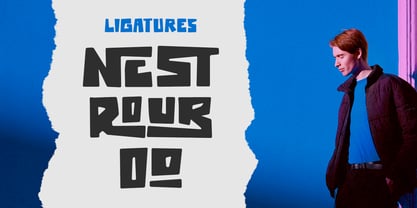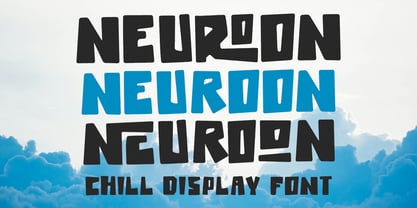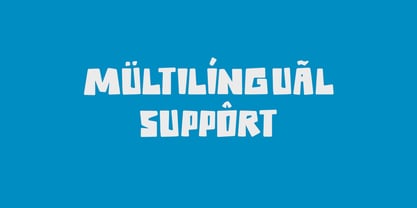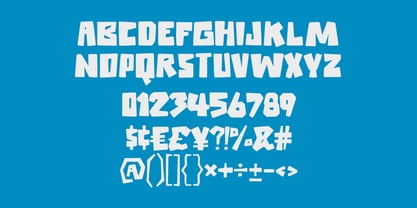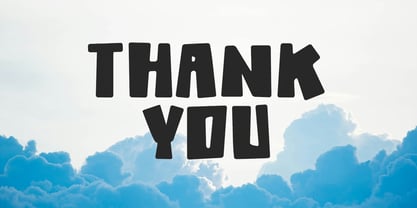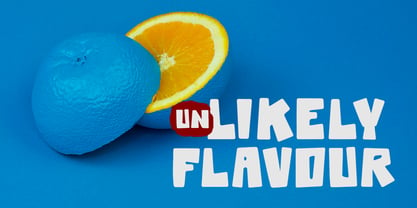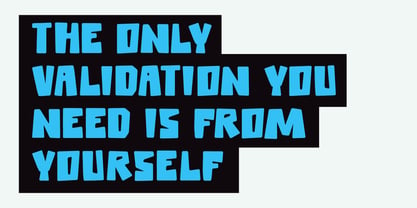
MC Neuroon
by Maulana Creative
The MC Neuroon Font Family was designed by Gilang Maulana and published by Maulana Creative. MC Neuroon contains 1 styles. More about this family
Neuroon sans display font. Heavy stroke, fun character with a bit of ligatures. To give you an extra creative work. Neuroon sans display font support multilingual more than 100+ language. This font is good for logo design, Social media, Movie Titles, Books Titles, a short text even a long text letter and good for your secondary text font with script or serif. Make a stunning work with Neuroon sans display font.
Designers: Gilang Maulana
Foundry: Maulana Creative